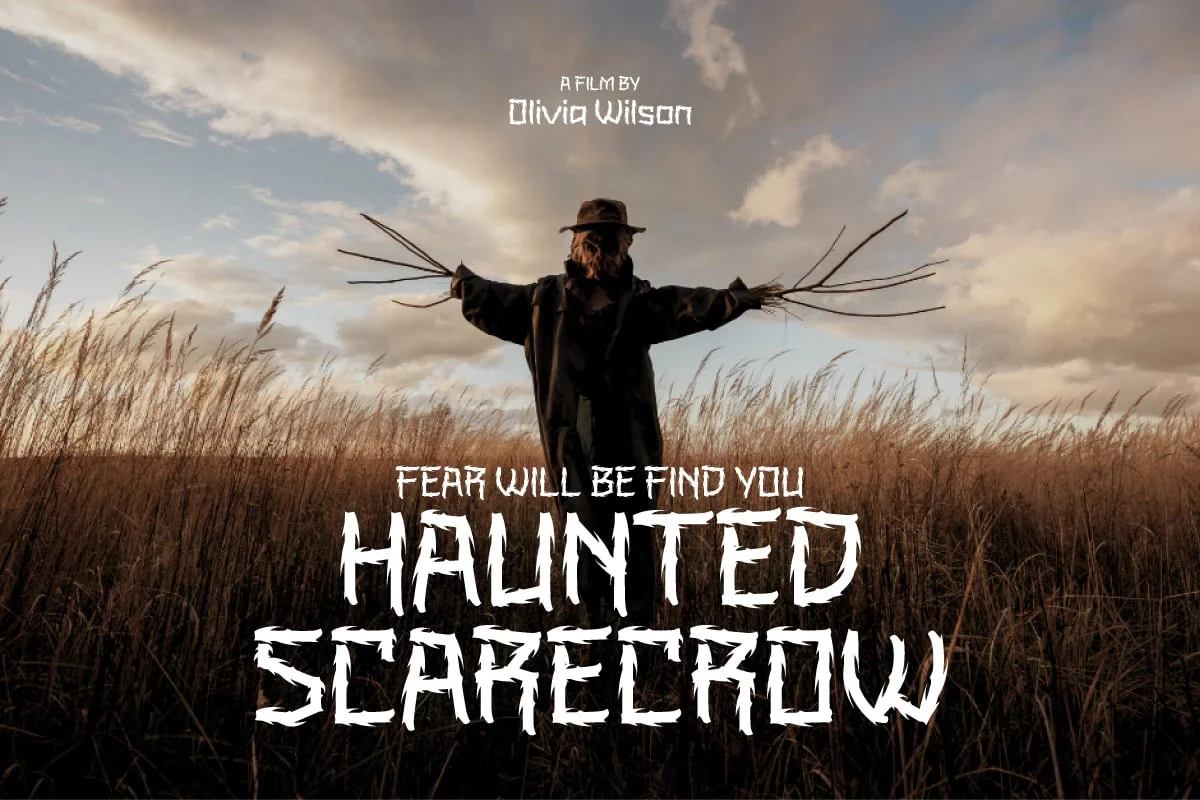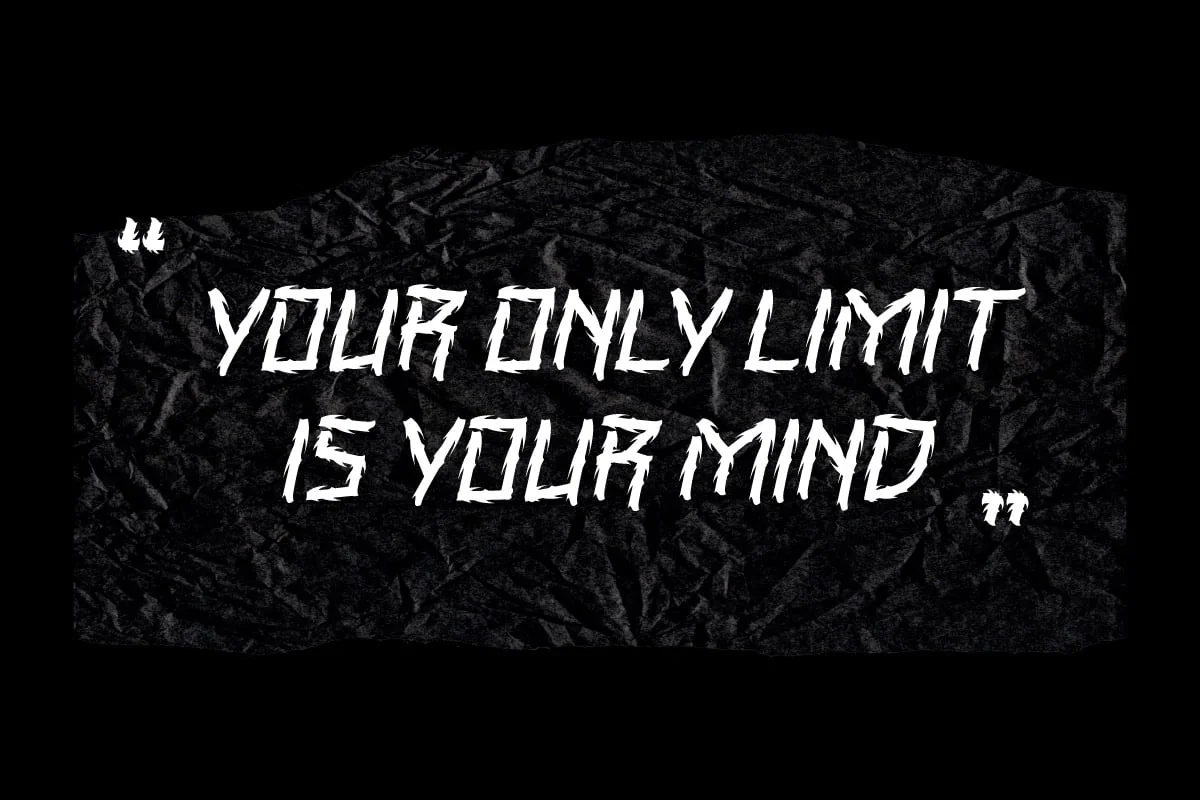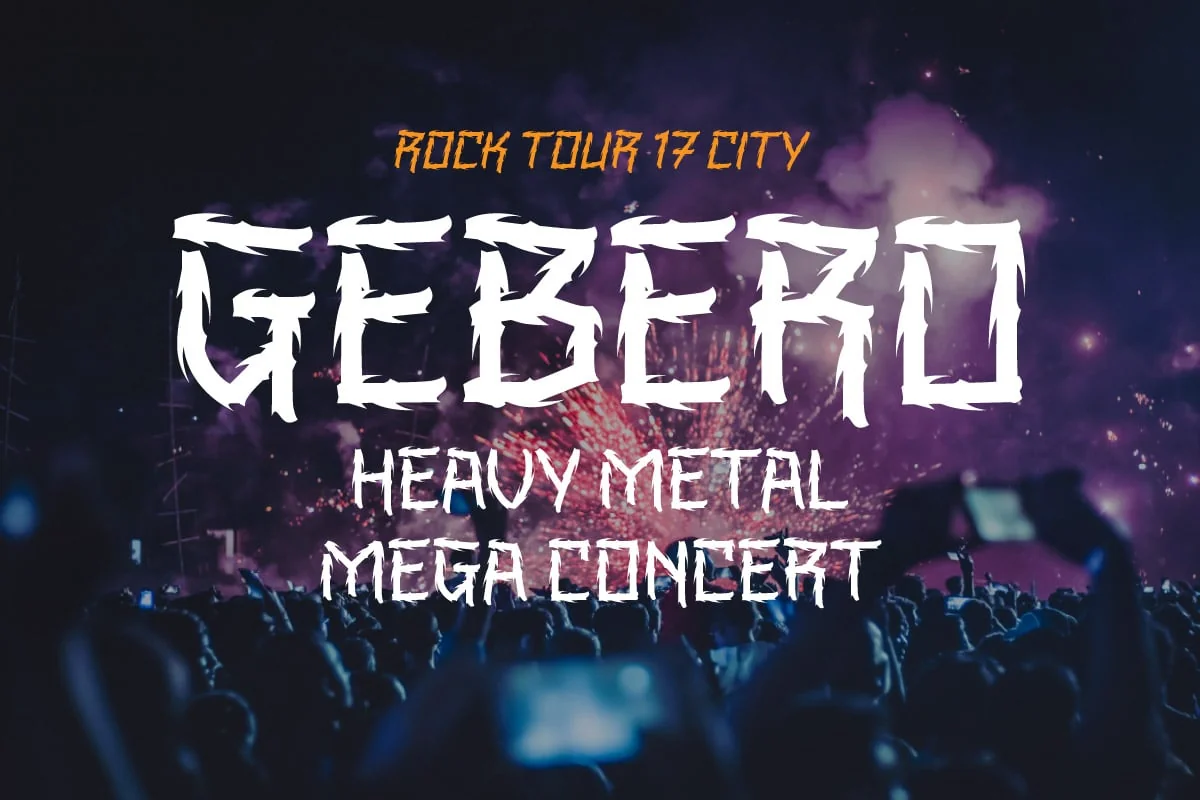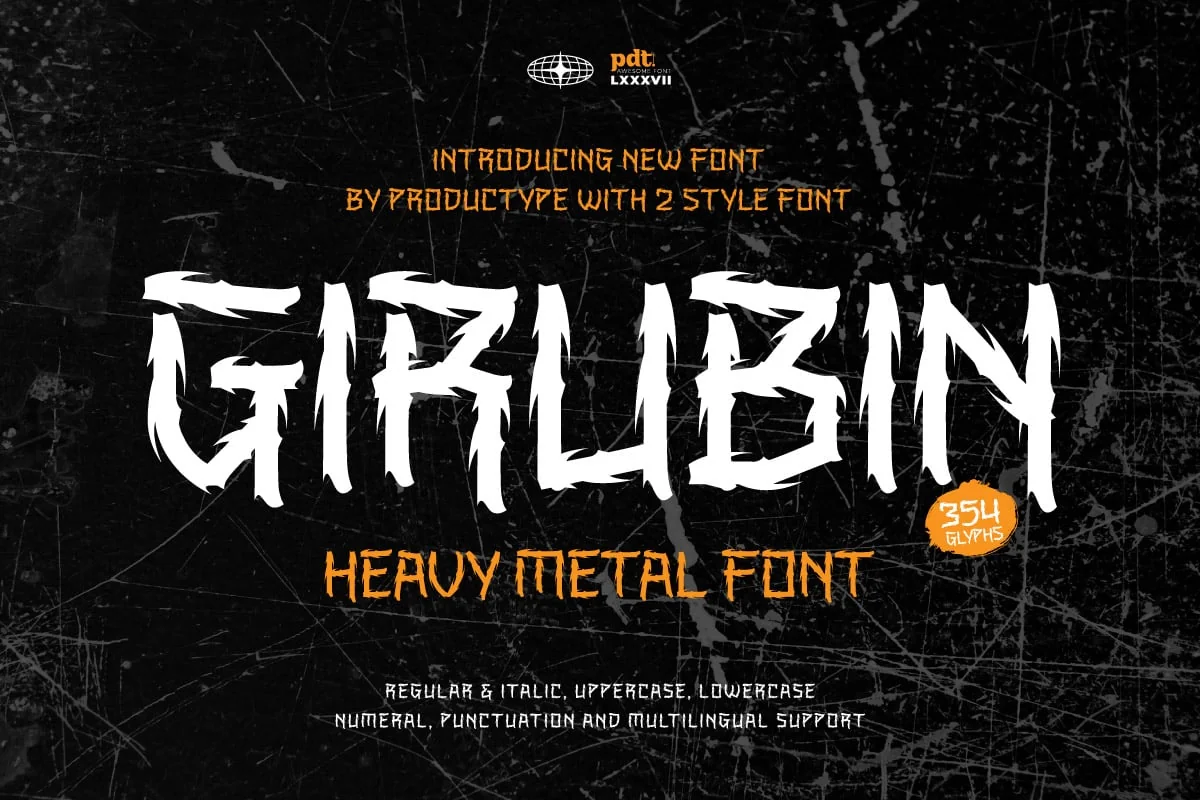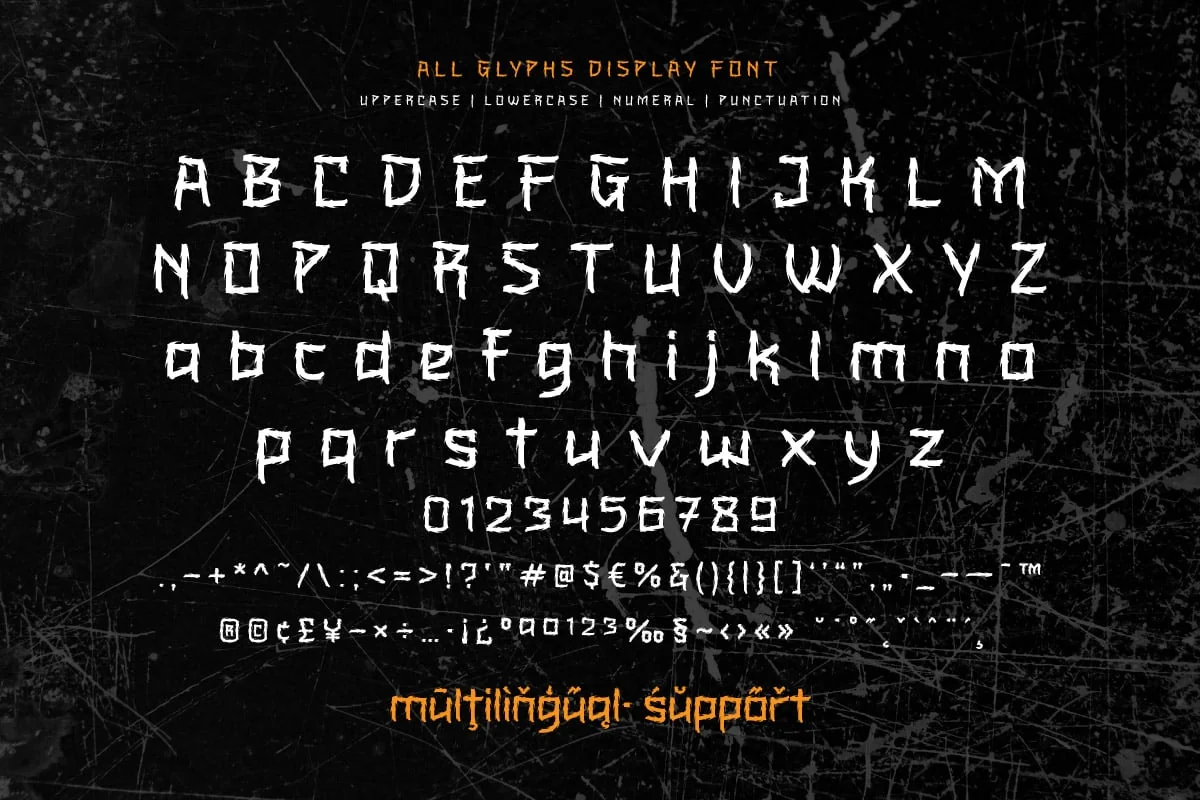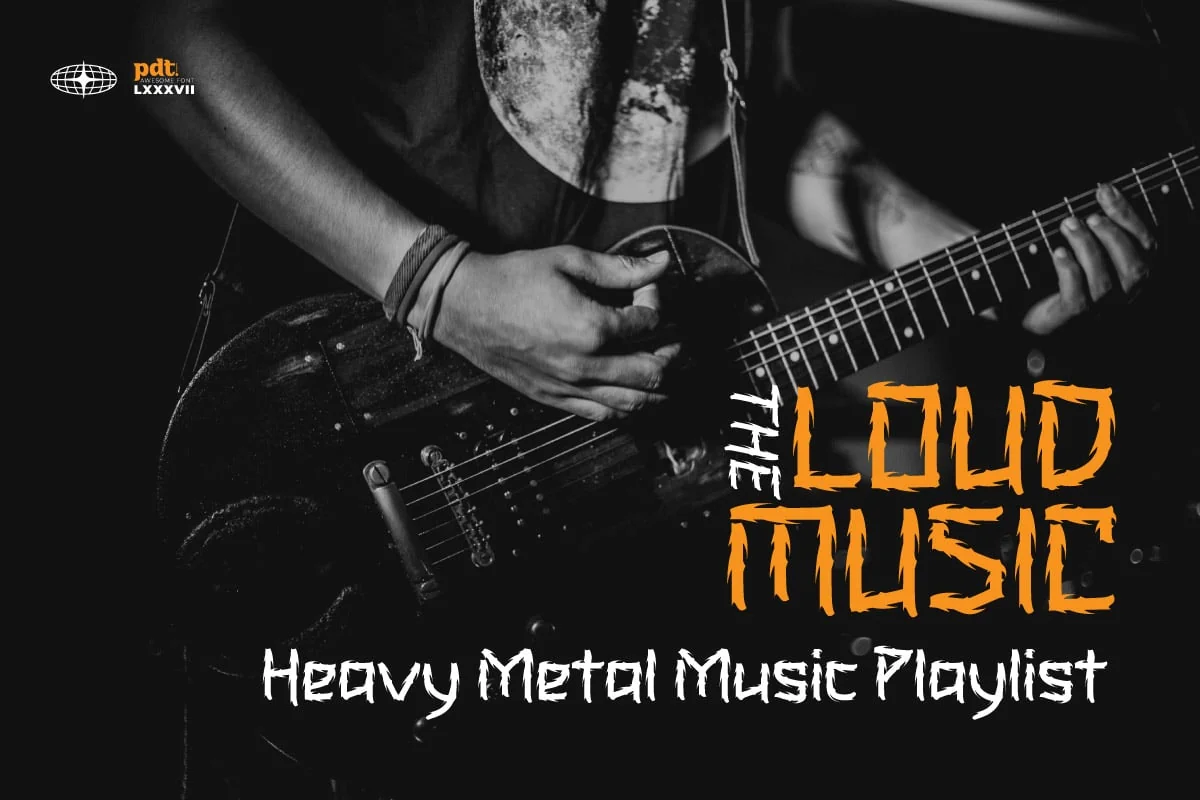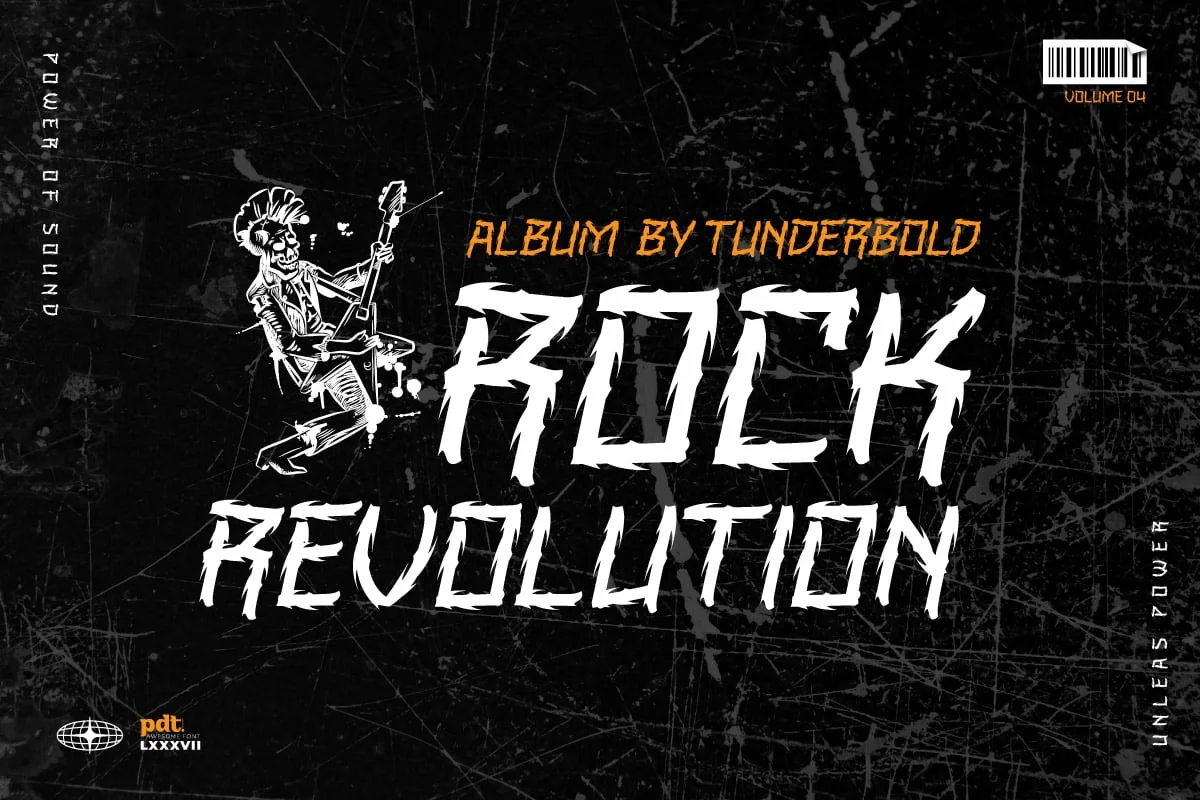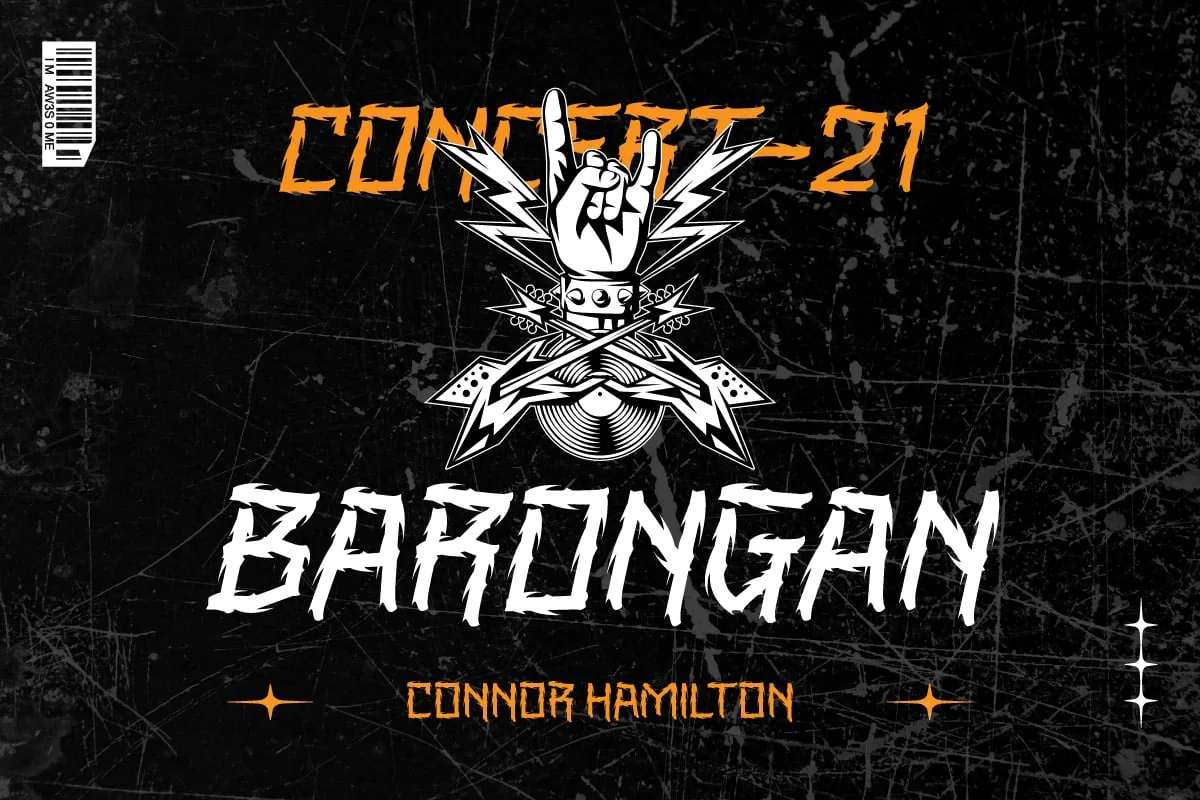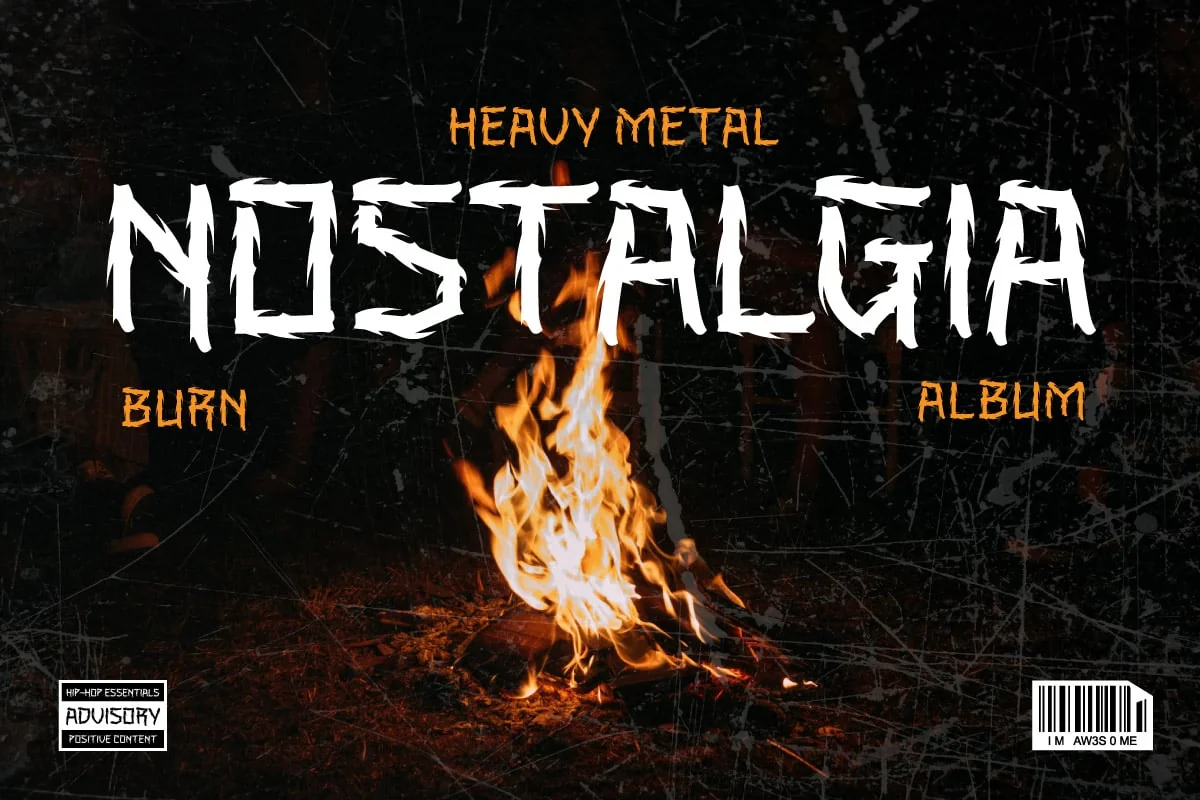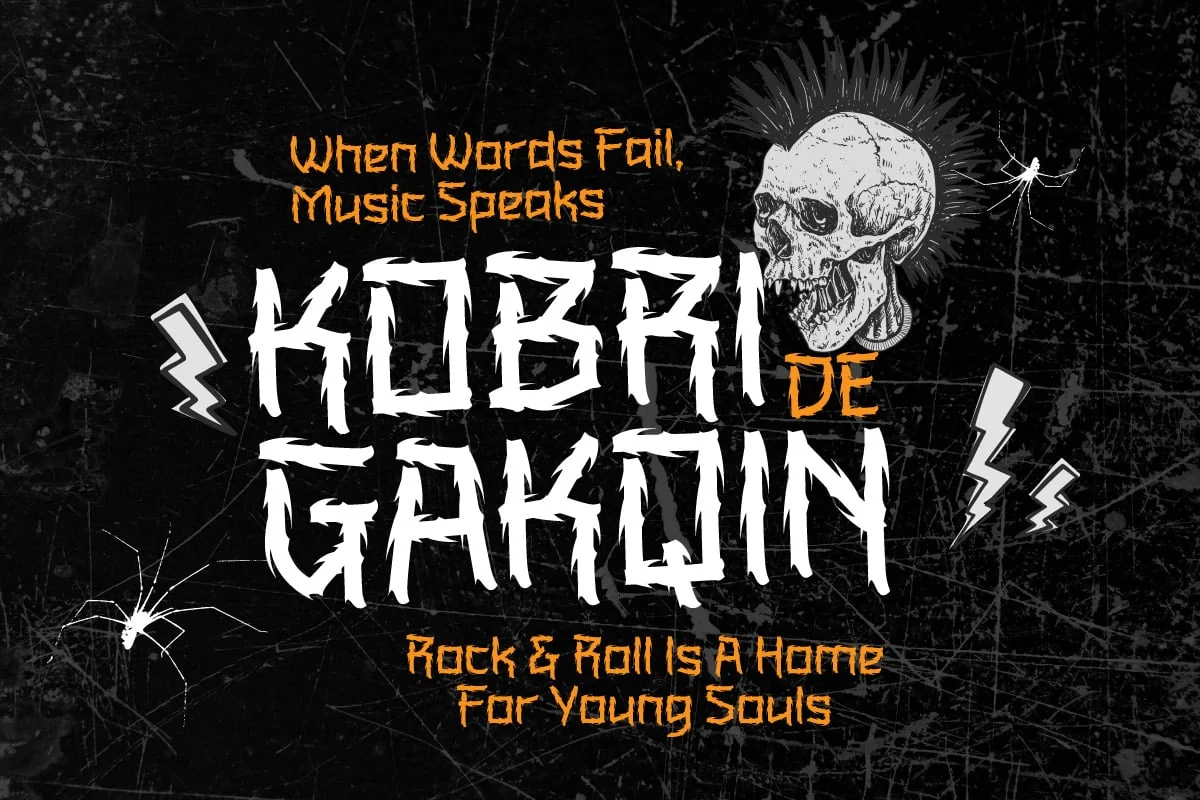
Girubin – Black Metal Font
Girubin is a fierce and chaotic black metal display font designed for those who want their designs to scream intensity. With jagged edges, sharp terminals, and aggressive letterforms, Girubin channels the raw energy of underground metal culture into every glyph. It’s the perfect choice for band logos, album covers, horror movie titles, extreme event posters, or any creative project that needs a dark, rebellious soul.
Crafted with a hand-drawn, distressed feel, Girubin captures the essence of brutality and darkness while still maintaining legibility. Make your statement loud, brutal, and unapologetically bold with Girubin.